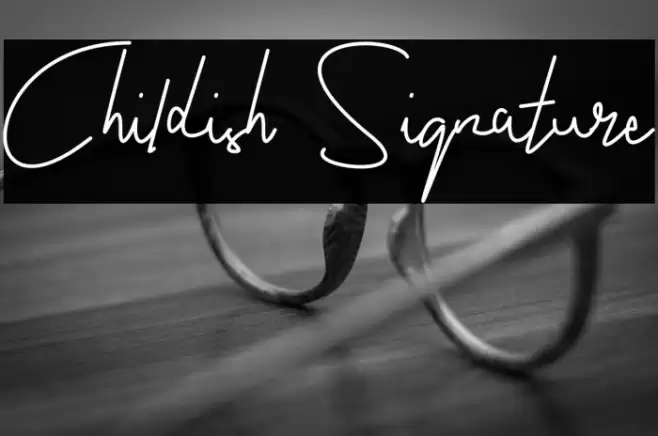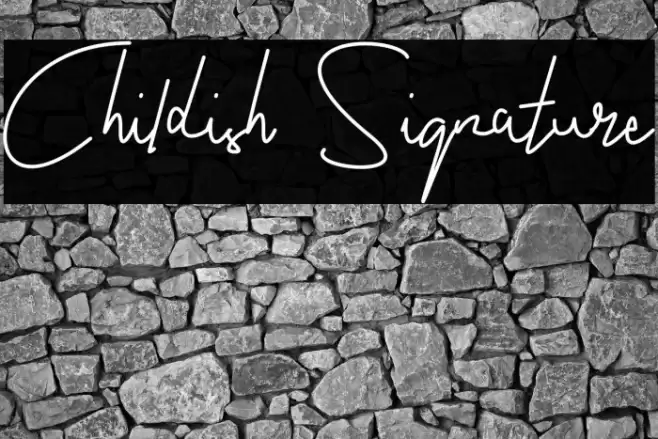
Childish Signature Font
Childish Signature Description
This font exudes a playful and whimsical charm, reminiscent of a child's handwriting. The letters are crafted with a fluid, cursive style that gives an impression of spontaneity and creativity. The uppercase characters maintain a consistent height, while the lowercase letters exhibit a more varied baseline, adding to the font's dynamic appearance. The strokes are thin and slightly irregular, enhancing the handwritten feel. This font lacks special characters, focusing solely on the alphabet, which makes it ideal for informal and creative projects. Its unique style is perfect for adding a personal touch to designs.
A playful, cursive font with a whimsical, handwritten style from Regular fonts.
- Proposed Projects: Ideal for children's book covers, playful invitations, personal notes, and creative branding.
- Weight: Light
- Overall Style: Playful, Whimsical
- Use Case: Creative projects, Informal designs